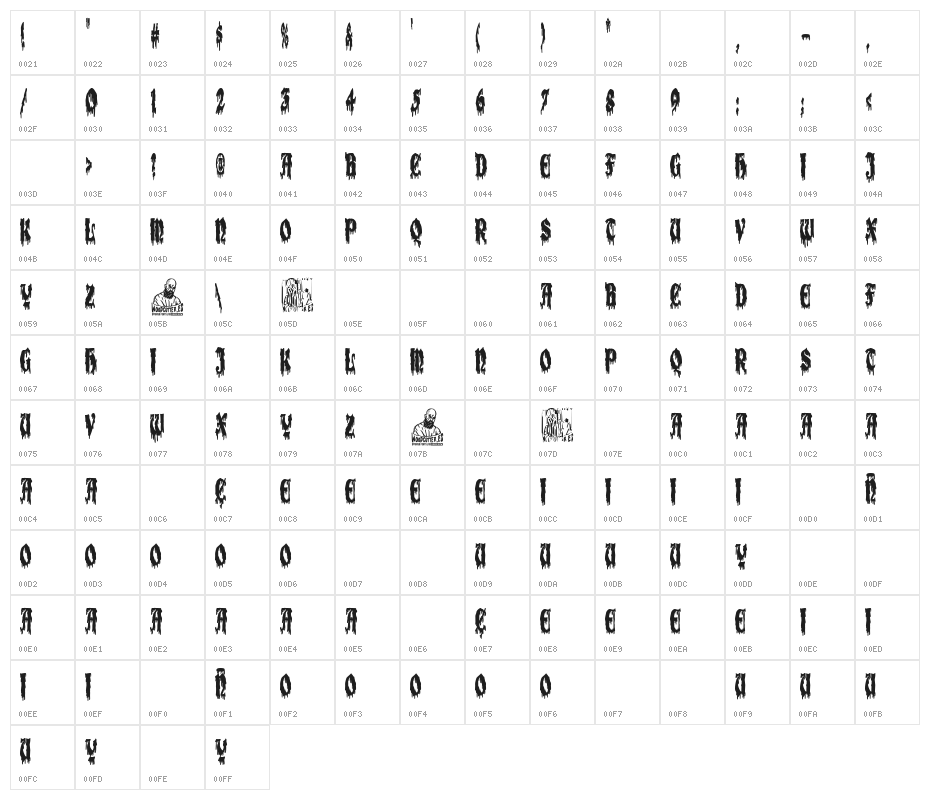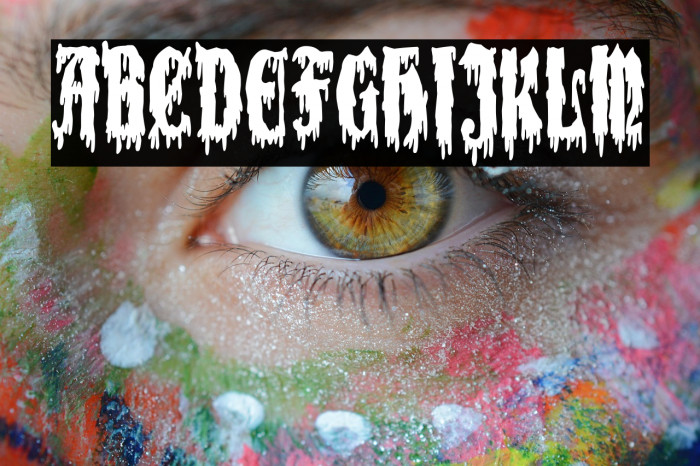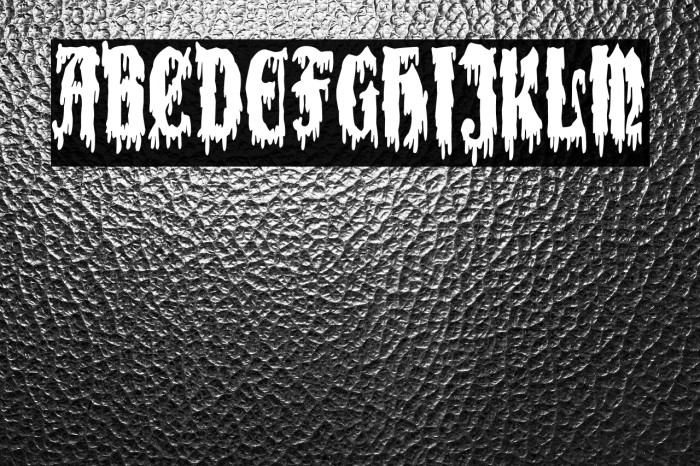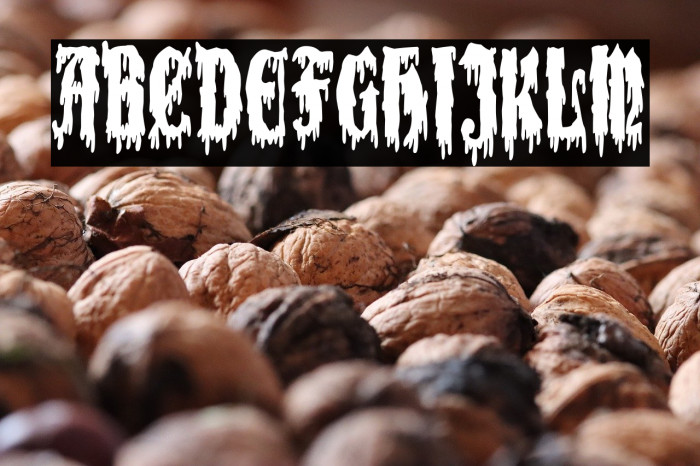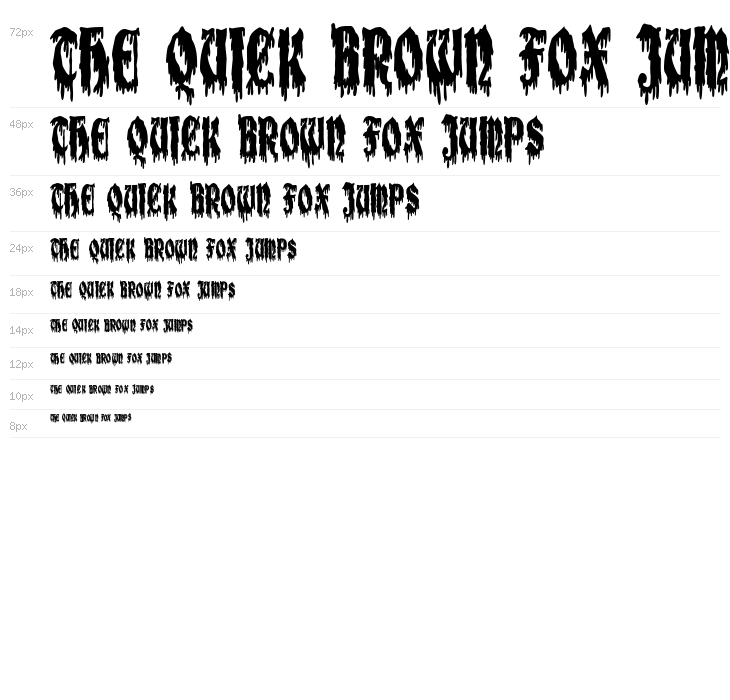
Extreme Bloody Gothic Font
Extreme Bloody Gothic Description
A highly decorative, horror-themed display font with heavy, irregular strokes and dripping effects that resemble blood or slime, creating a dramatic and unsettling appearance.
| Overall Style | Decorative, Horror, Gothic |
| Use Case | Headlines, Posters, Logos, Event Titles |
| Proposed Projects | Halloween posters, haunted house flyers, horror movie titles, themed party invitations, spooky event branding. |